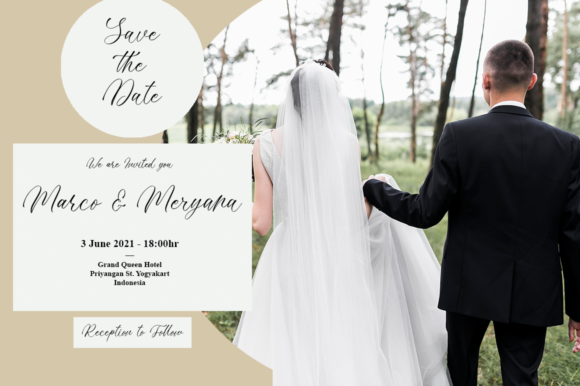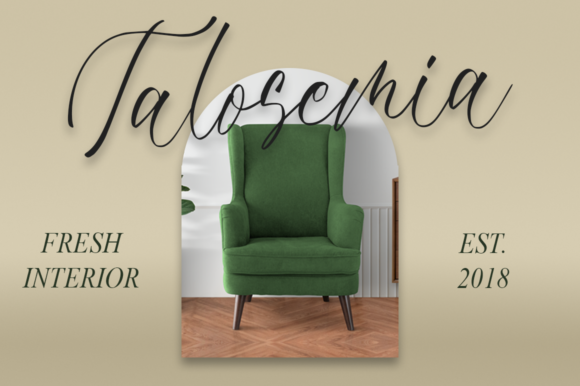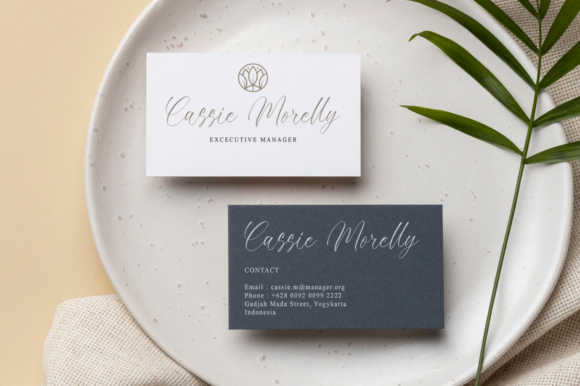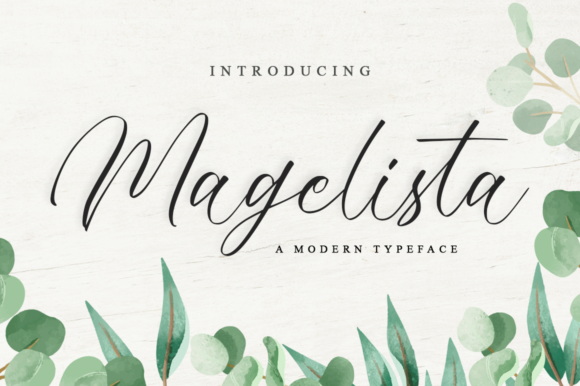
Introduction to Magelista Font
Magelista is a stylish and incredibly elegant script font.
It looks stunning on wedding invitations, thank you cards, quotes, greeting cards, logos, business cards and every other design which needs a customized touch Magelista is PUA encoded which means you can access all of the glyphs and swashes with ease.
Key Features of Magelista Font